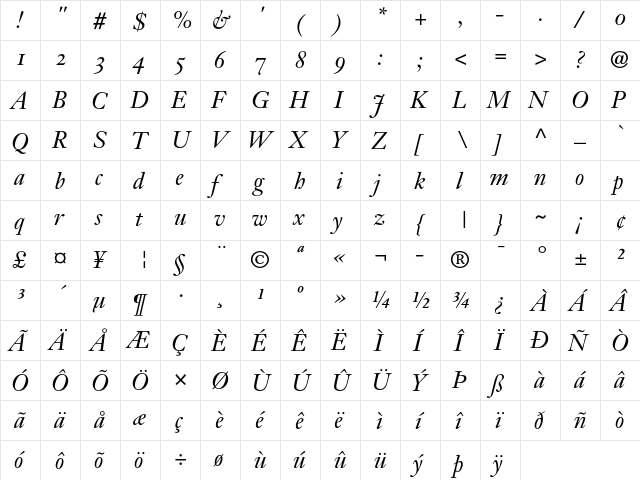
Janson Text 56 Italic OsF Font Preview
Janson Text 56 Italic OsF
Janson Text 56 Italic OsF Font Details
| Style | 56 Italic OsF |
Design Context for Janson Text Typeface
Janson Text offers clean, dependable letterforms without strong stylistic allegiance, making it a practical choice for designers who need flexibility. Its italic angle brings a sense of urgency and motion to the letterforms.
Pro Tip: Try Janson Text for annotation and caption copy alongside an upright companion — the contrast in angle creates a dynamic but ordered typographic system.